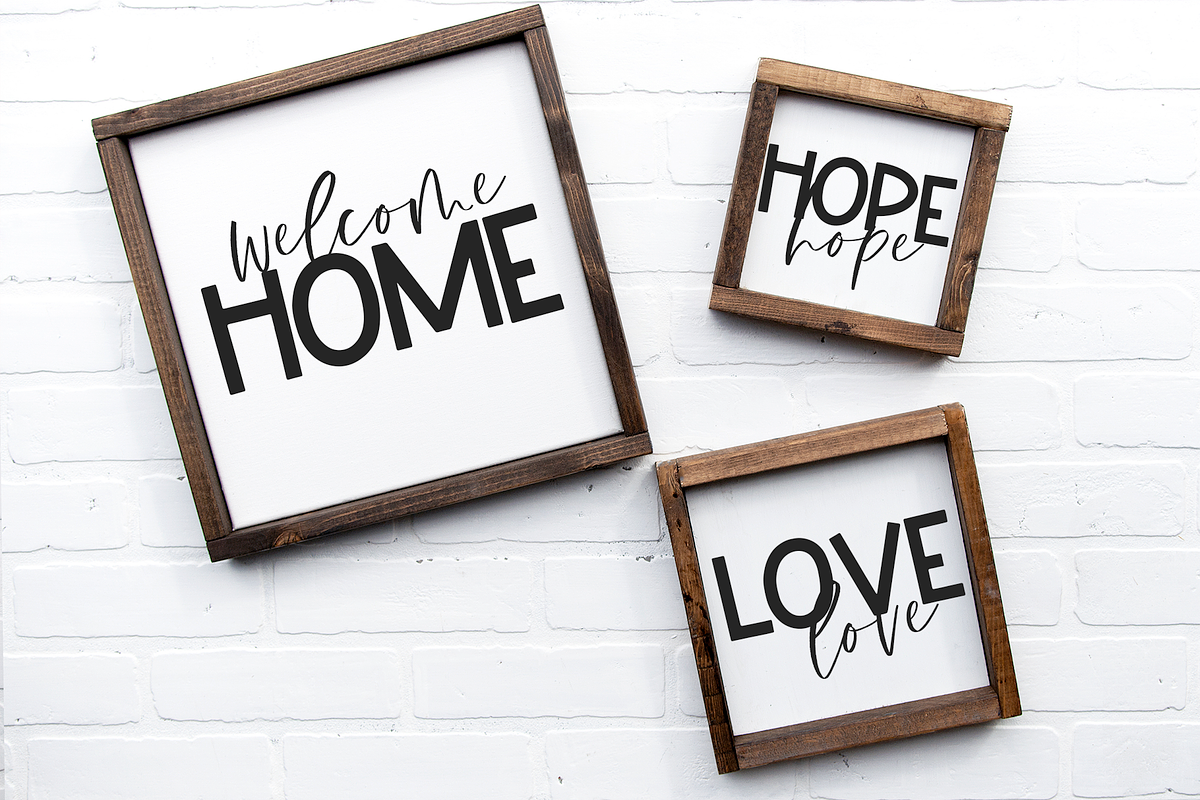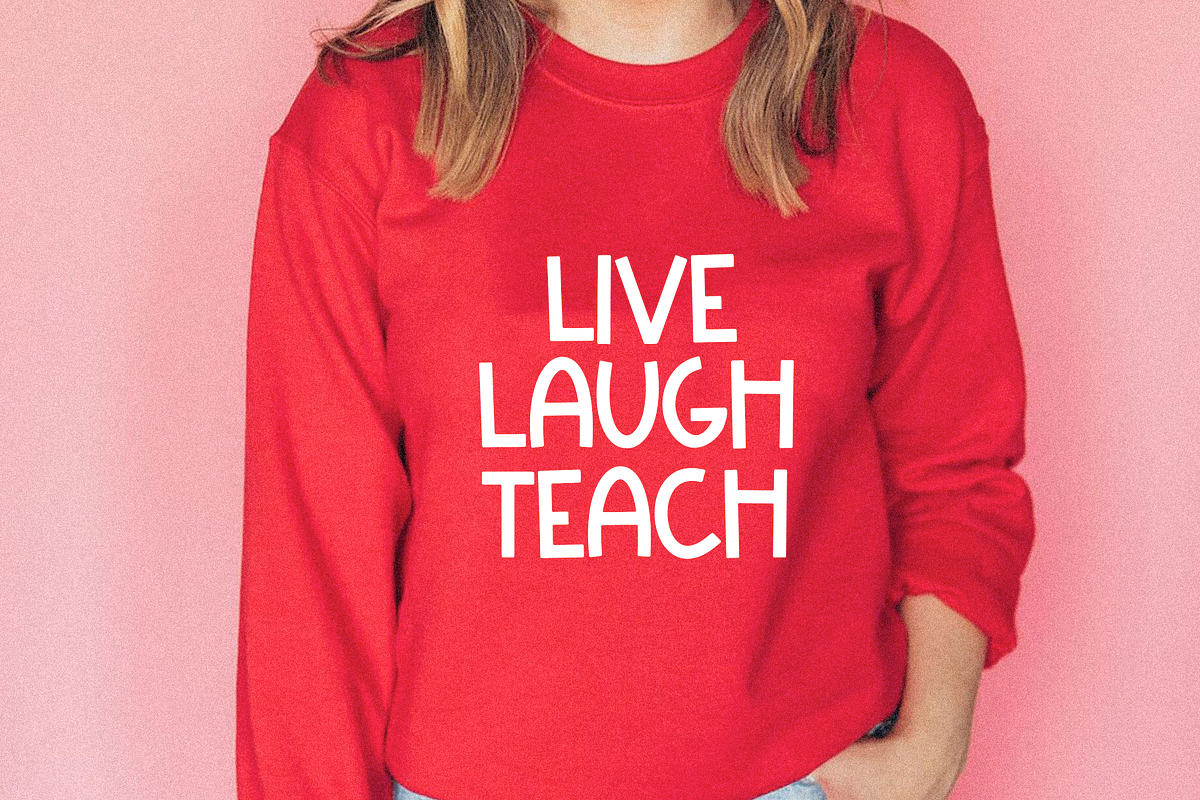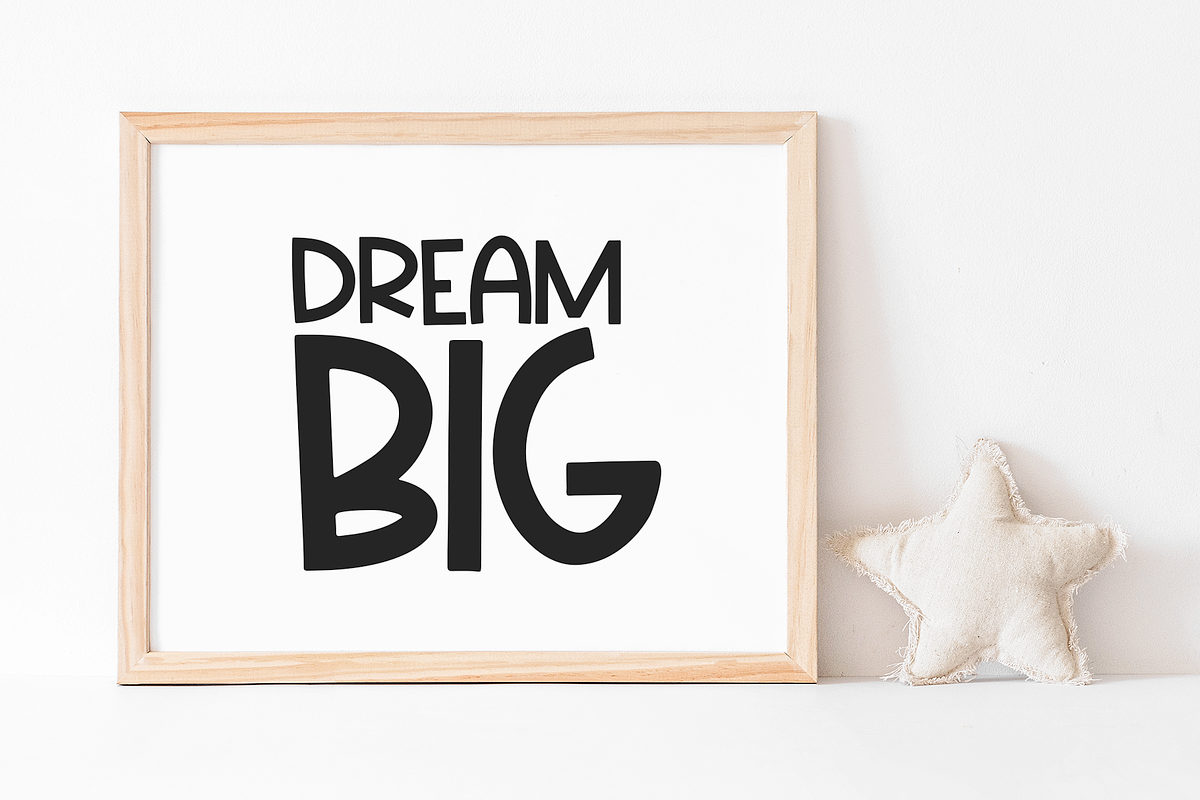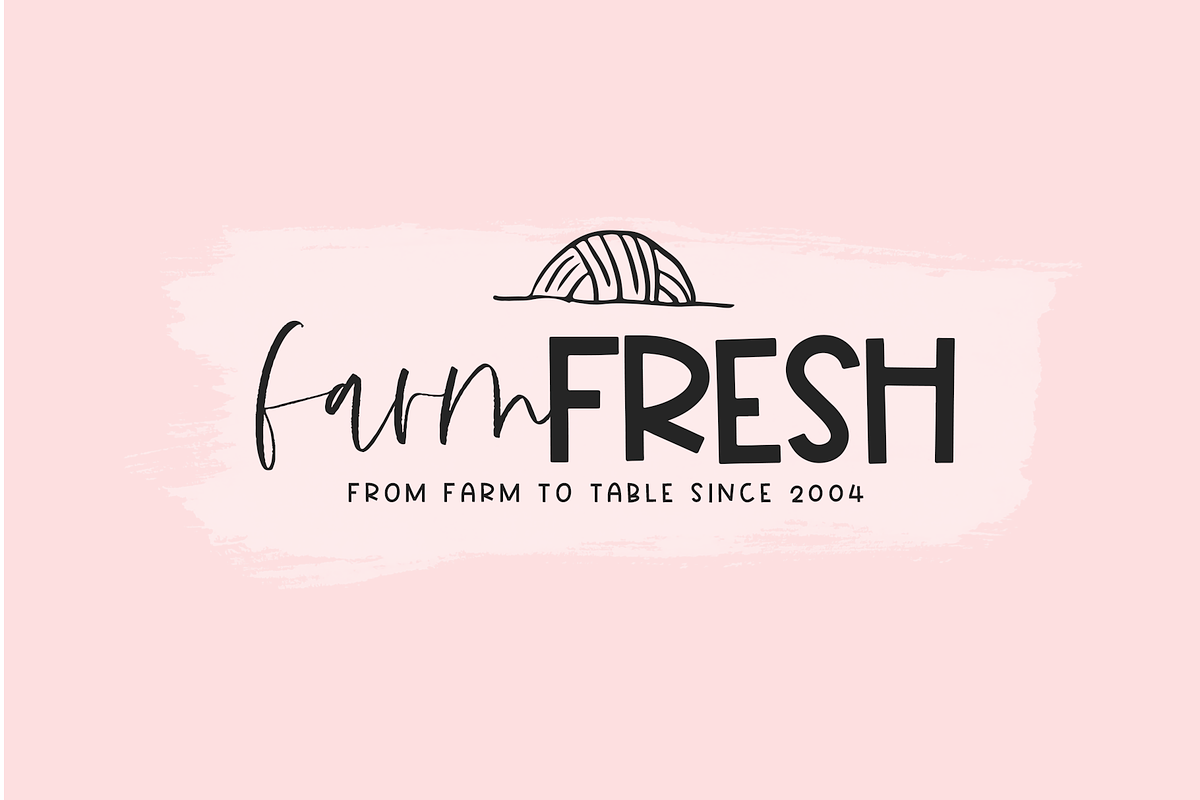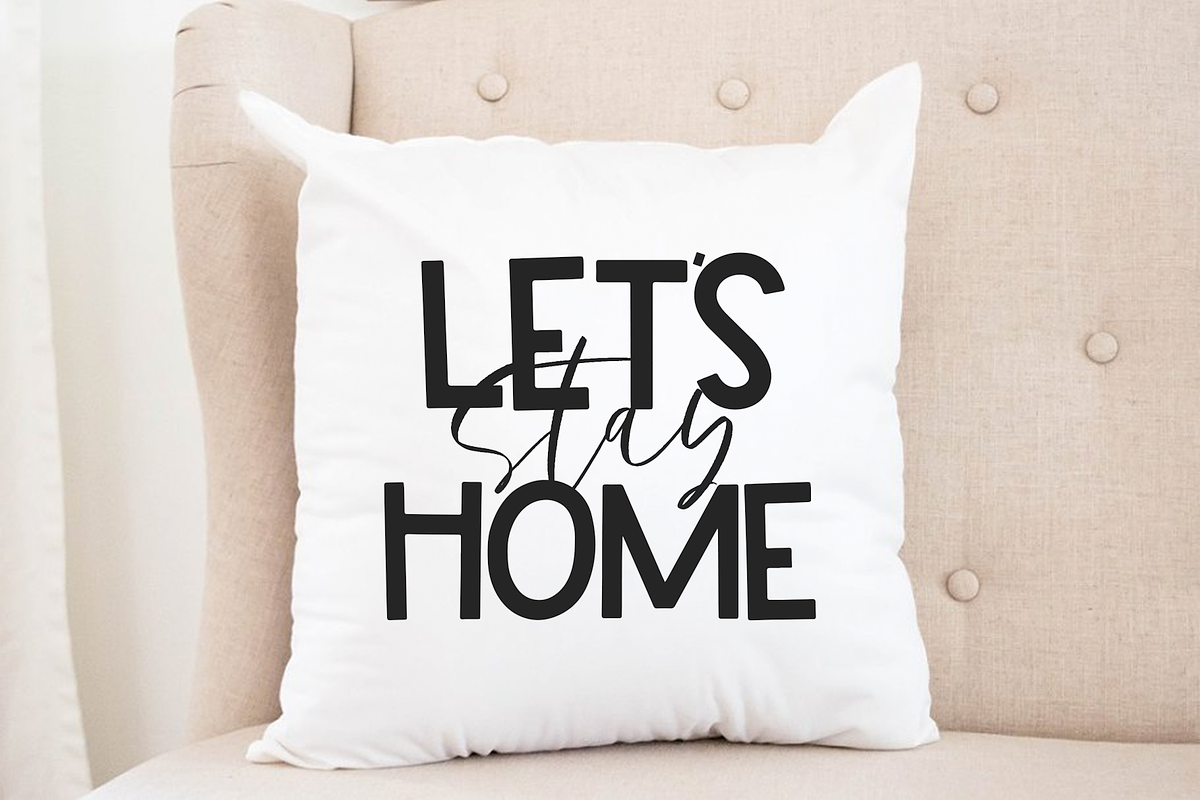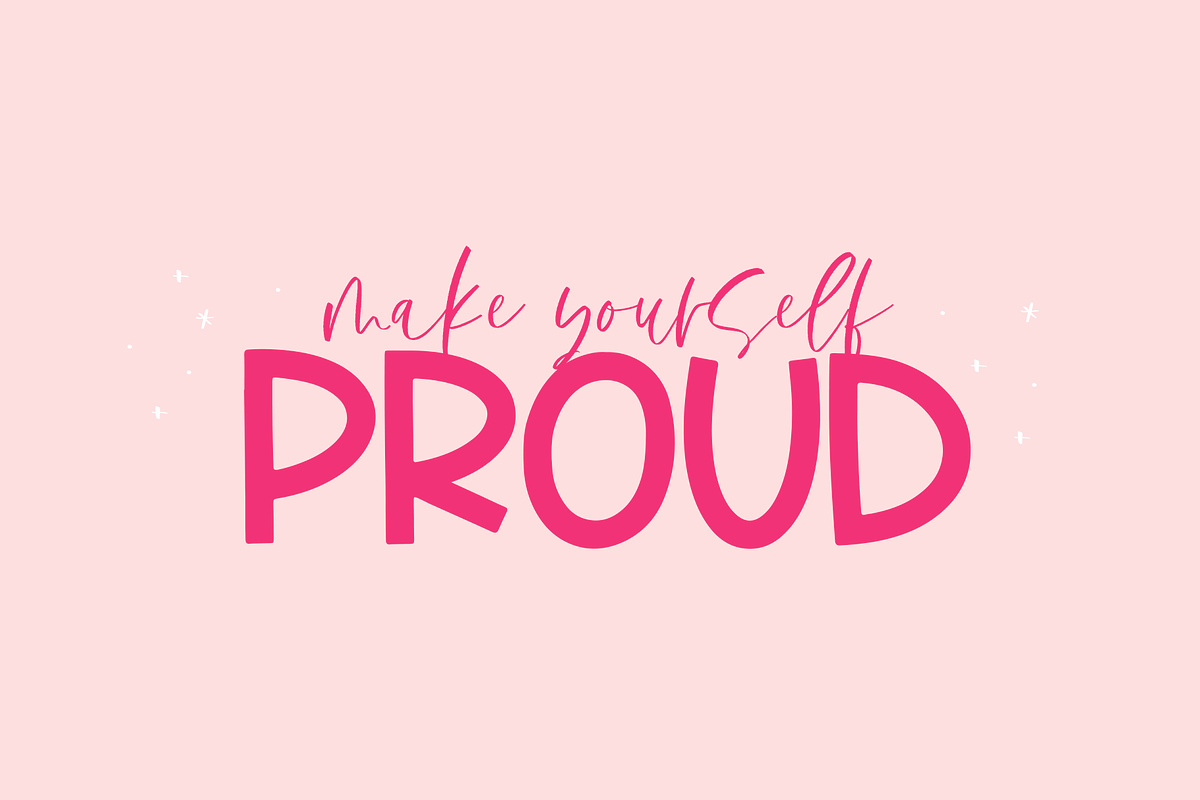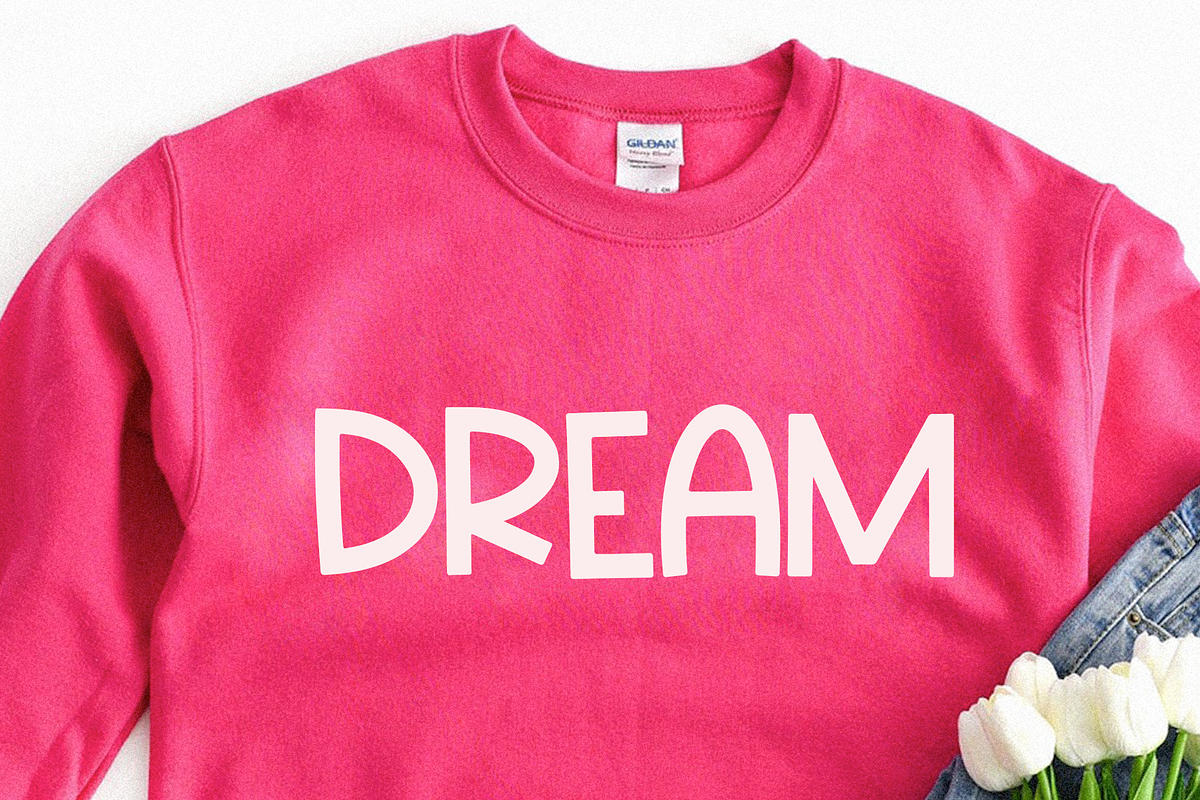
Pink Sugar | Fun Handwritten Font
Pink Sugar is a fun handwritten font.
This font is perfect for svg designs, branding, logos, shirts, social media and more!
Pink Sugar | Fun Handwritten Font by KA Designs fits naturally into Branding, posters, packaging, typography.